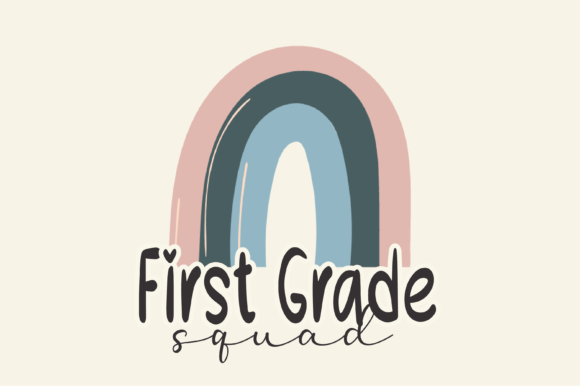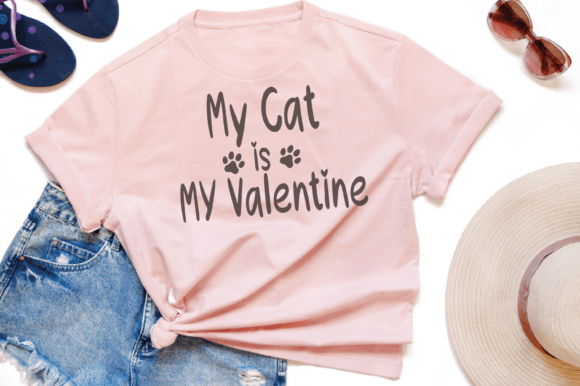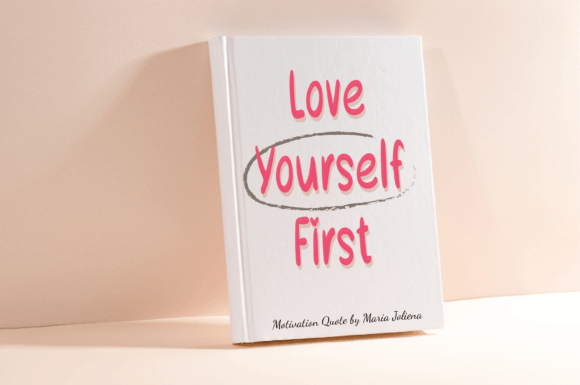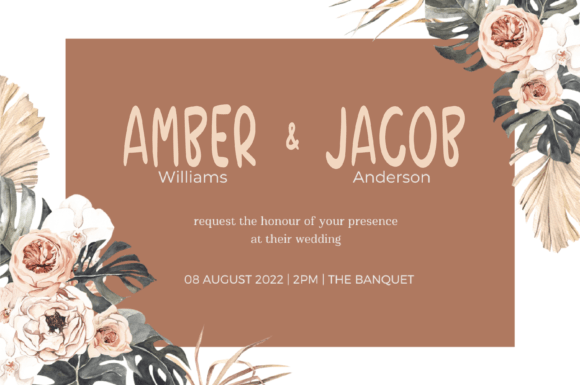
About Angle Bird Font
**”Angle Bird”** is a fun and casual handwritten font that brings a relaxed and lighthearted vibe to your design projects. With its friendly and versatile style, this font has the potential to become your preferred choice for various creative occasions, making it a valuable addition to your font collection.
The casual and playful nature of **”Angle Bird”** makes it suitable for a wide range of design applications. Whether you’re using it for crafts, digital design, presentations, greeting cards, or any other creative project, this font adds a touch of informality and charm to your designs.
In crafts and DIY projects, **”Angle Bird”** brings a fun and creative element. Its handwritten style makes it perfect for adding personalized touches to handmade items and craft materials.
Digital design and presentations benefit from the friendly and versatile aesthetics of **”Angle Bird.”** It can be used to create engaging and approachable visuals, making your content more relatable and enjoyable for viewers.
Greeting cards designed with **”Angle Bird”** have a warm and inviting quality. The font’s casual appearance adds a personal and heartfelt touch to your messages, making them more meaningful to recipients.
The versatility of **”Angle Bird”** makes it adaptable to a wide range of creative occasions, allowing you to use it confidently for various design purposes.
In summary, **”Angle Bird”** is a fun and casual handwritten font that adds a relaxed and lighthearted vibe to your design projects. Its versatility and charm make it a valuable choice for crafts, digital design, presentations, greeting cards, and any project where a friendly and informal style is desired.